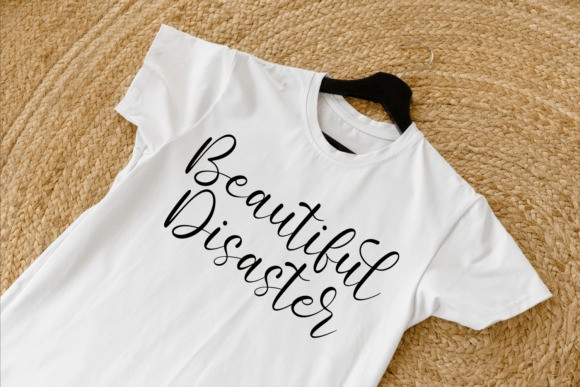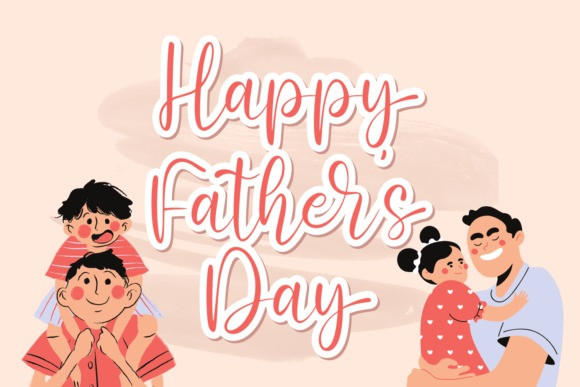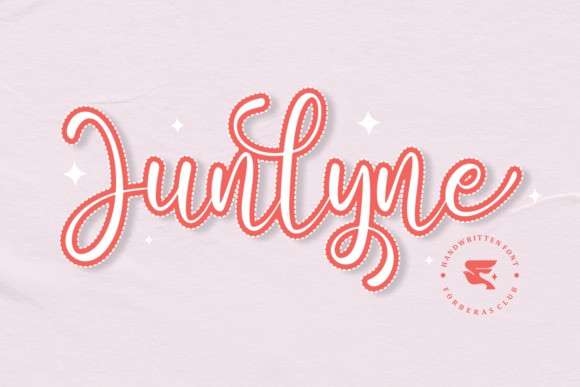
Junlyne Font
Junlyne Font is a delicate and well-rounded handwritten font, perfect for crafty projects that need authentic typography! Use it for wedding invitations, birthday cards, personal branding, elegant logos, and more, and your designs will stand out.